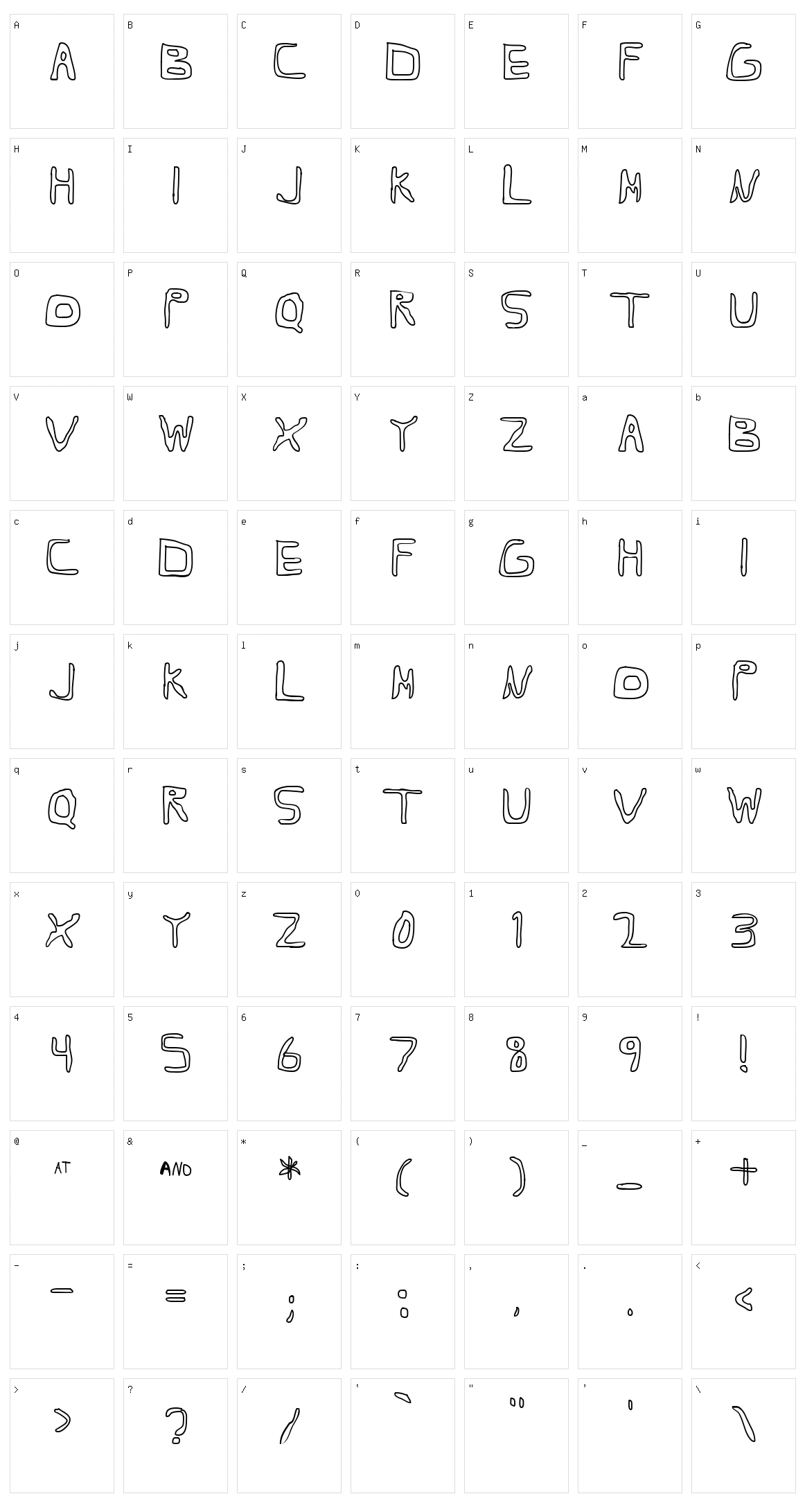
The free font Barbapa 3 is carefully designed by Dope Fonts, showcasing a thoughtful balance of creativity and usability and falls under the Cartoon font style. When you download the ZIP file, it contains only 28.76 KB of font files, making it lightweight and quick to download. Please review the license details below to understand permitted usage and distribution rights. If license information is not available, we recommend using this font for personal projects only or contacting the author directly for commercial usage permissions.
Barbapa
Created by Ola Nilsson dopefonts -97